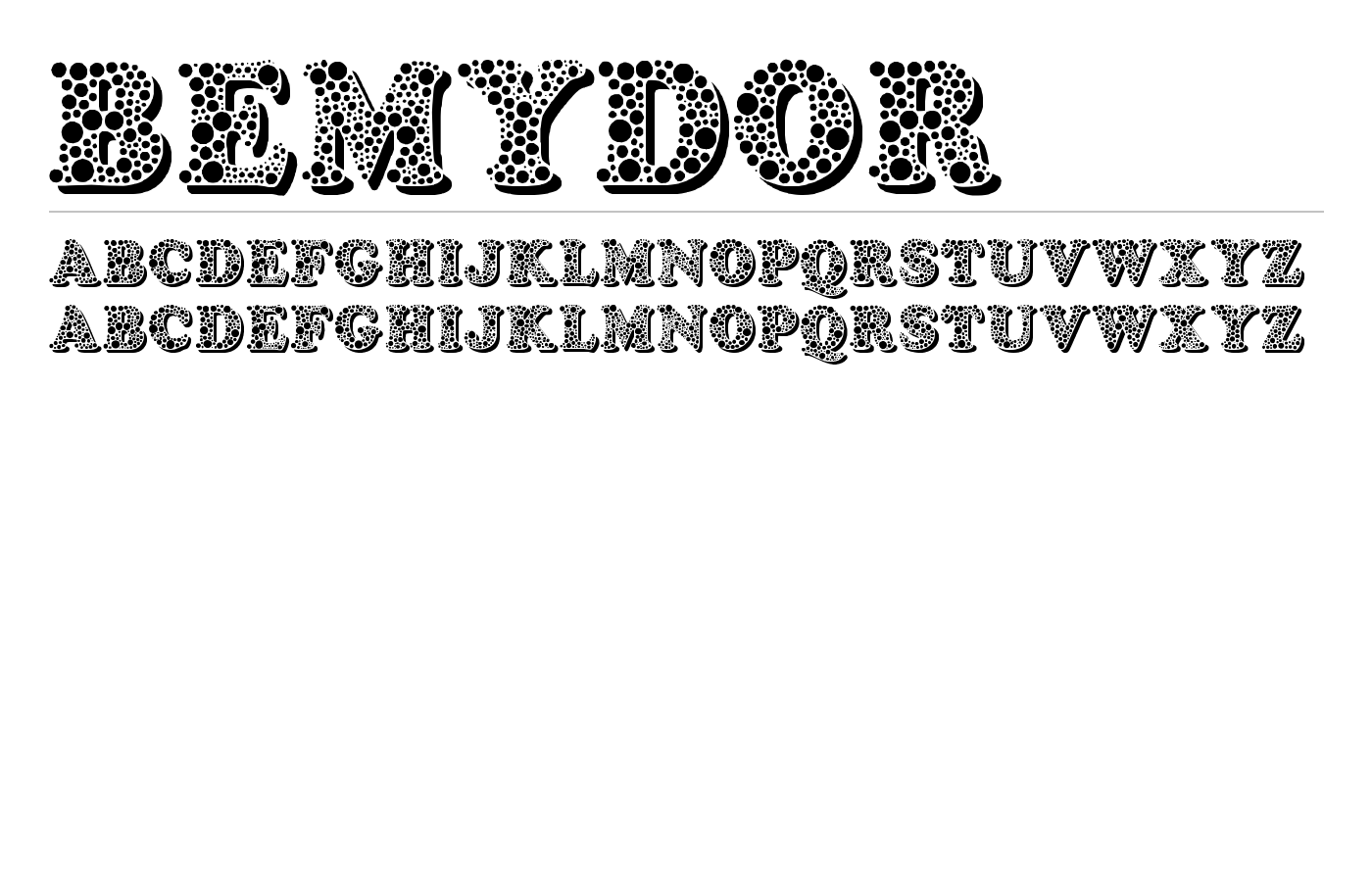
Bemydor is a bold, decorative serif font characterized by its playful use of solid dots forming the letter shapes, giving it a distinct, eye-catching texture. With its strong presence and whimsical style, Bemydor is ideal for creative branding, headlines, and designs that seek a fun, vintage-inspired look with a modern twist. This font works best when used at larger sizes where its unique pattern can truly stand out and add visual interest.
Bemydor Font
About Bemydor Font